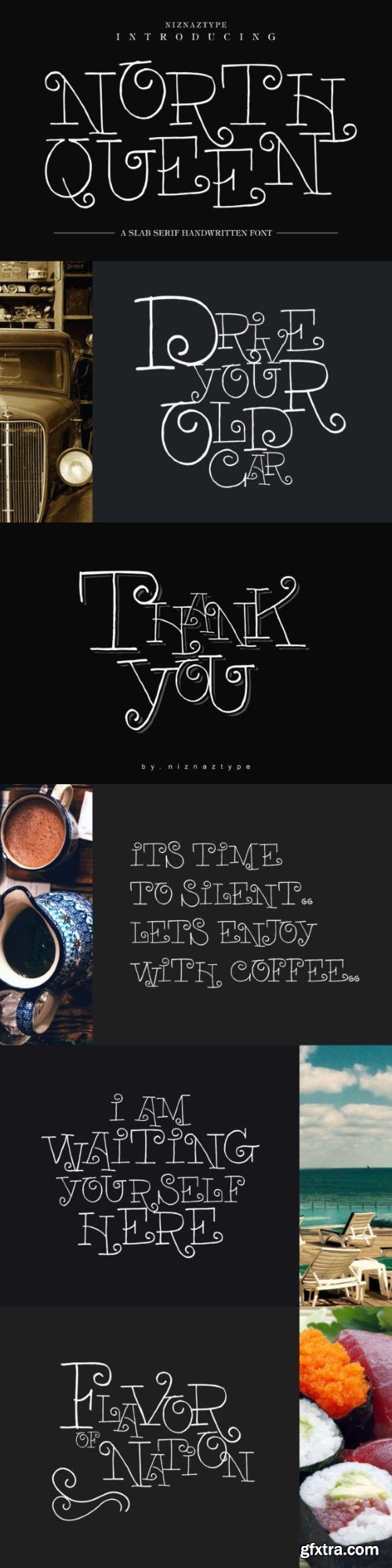
诺特女王字体
North Queen is an elegant and bold slab serif font with a handwritten style. Fall in love with its incredibly versatile style and use it to create gorgeous wedding invitations, beautiful stationary art, eye-catching social media posts, and much more!